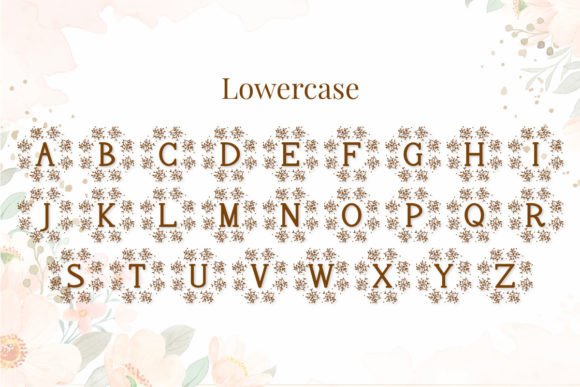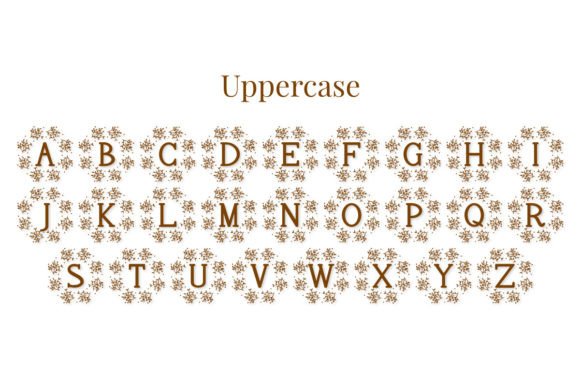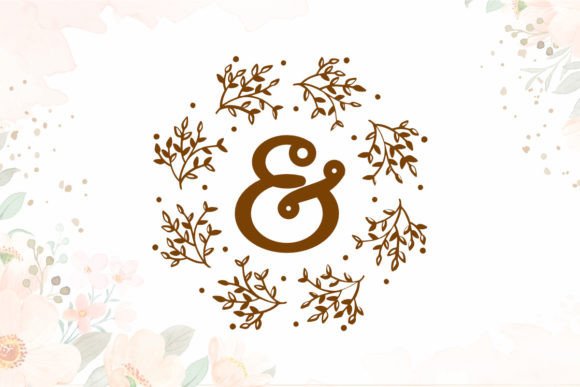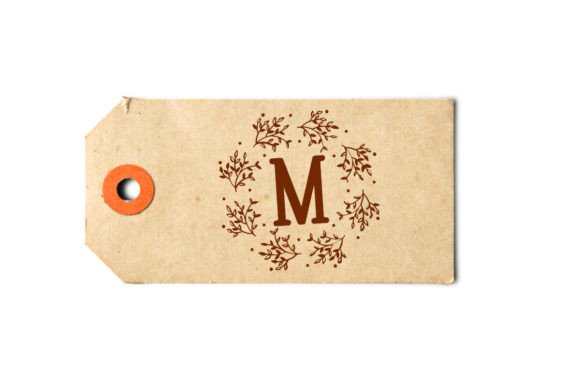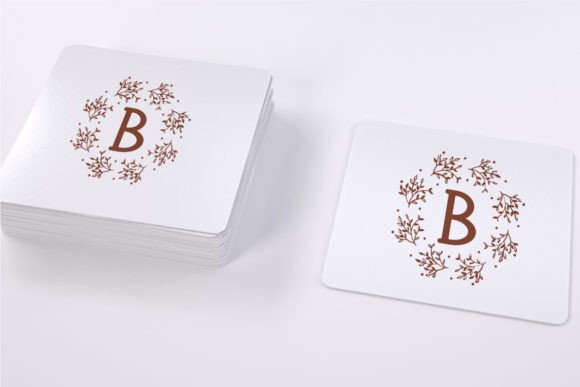
Discover the Elegance of Asoka Font: A Lovely Decorative Font for Your Creative Projects
Are you looking for a font that adds a touch of elegance and sophistication to your designs? Look no further than the Asoka Font, a beautiful decorative font featuring stunning flower monograms. With its authentic feel and versatility, Asoka is the perfect choice for designers and crafters seeking to create gorgeous wedding invitations, eye-catching social media posts, and cute greeting cards.
What is Asoka Font?
Asoka Font is a decorative font that boasts intricate flower monograms, perfect for adding a touch of whimsy and romance to your designs. Its unique and authentic feel makes it an excellent choice for a variety of creative projects, from wedding stationery to social media graphics. With Asoka, you can add a personal touch to your designs and make them stand out from the crowd.
Features of Asoka Font
- Beautiful Flower Monograms: Asoka Font features stunning flower monograms that add a touch of elegance and sophistication to your designs.
- Authentic Feel: The font’s authentic feel makes it perfect for creating designs that require a personal touch, such as wedding invitations and greeting cards.
- Versatile: Asoka Font is versatile and can be used for a variety of creative projects, from social media graphics to digital art.
Uses of Asoka Font
Asoka Font is perfect for a variety of creative projects, including:
- Wedding Invitations: Create stunning wedding invitations that set the tone for the big day.
- Social Media Posts: Add a touch of elegance to your social media posts and make them stand out from the crowd.
- Greeting Cards: Create cute and personalized greeting cards for special occasions.
- Digital Art: Use Asoka Font to add a touch of whimsy and romance to your digital art.
Benefits of Using Asoka Font
Using Asoka Font in your designs offers several benefits, including:
- Unique Designs: Asoka Font allows you to create unique and personalized designs that stand out from the crowd.
- Time-Saving: The font’s intricate designs save you time and effort, allowing you to focus on other creative aspects of your project.
- Elegance and Sophistication: Asoka Font adds a touch of elegance and sophistication to your designs, making them perfect for special occasions.
Tips for Using Asoka Font
Here are some tips for using Asoka Font in your designs:
- Mix and Match: Mix and match Asoka Font with other fonts to create a unique and personalized design.
- Pay Attention to Details: Pay attention to details, such as font size and spacing, to ensure your design looks elegant and sophisticated.
In conclusion, Asoka Font is a lovely decorative font that features beautiful flower monograms, perfect for adding a touch of elegance and sophistication to your designs. With its authentic feel and versatility, Asoka is the perfect choice for designers and crafters seeking to create gorgeous wedding invitations, eye-catching social media posts, and cute greeting cards. So why wait? Get inspired by Asoka Font and take your designs to the next level!